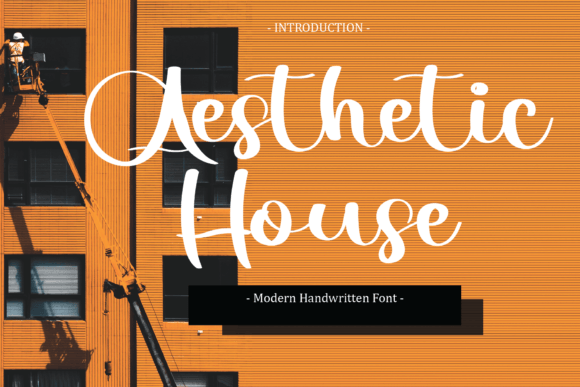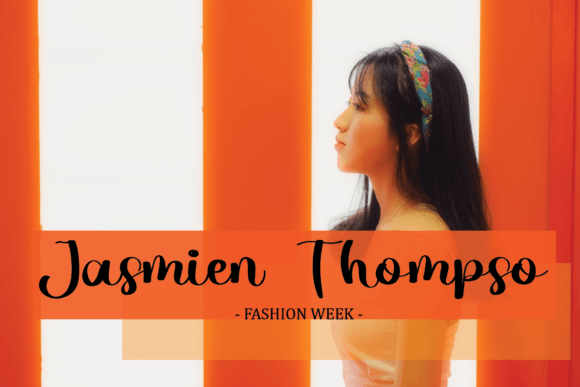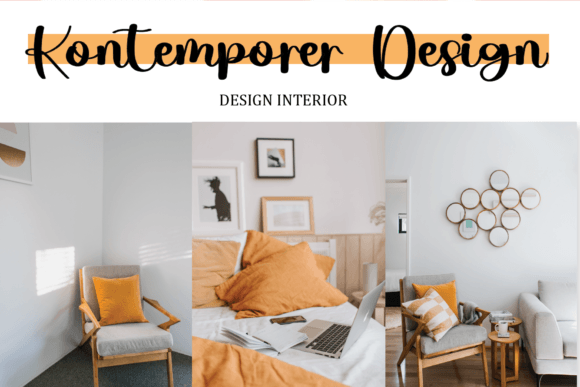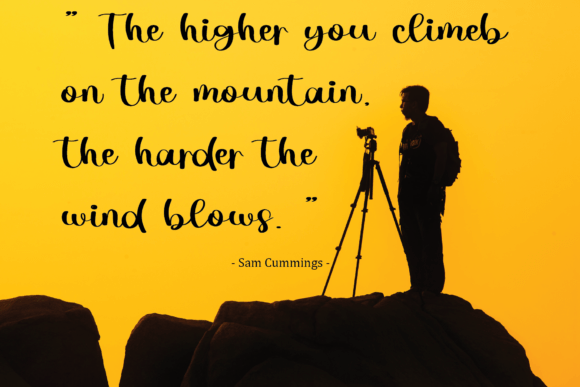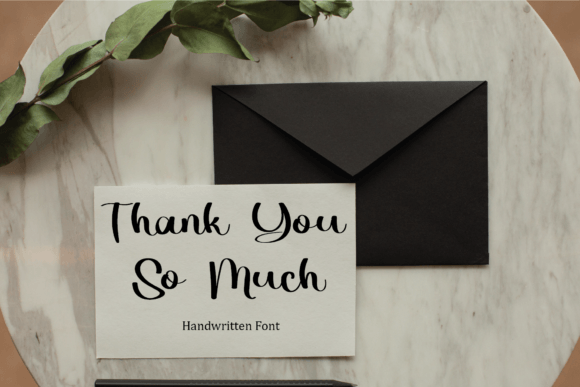
Aesthetic House Font
About Aesthetic House Font
**”Aesthetic House” Handwritten Font: Elegance and Modern Charm**
“Aesthetic House” is an elegant handwritten font that radiates beauty, featuring exquisite characters with a modern impression. This font’s graceful style makes it perfect for a wide range of design applications, adding a touch of sophistication to your projects. Here’s how you can leverage the “Aesthetic House” font to create stunning designs:
1. **Wedding Invitations:** Elevate your wedding invitations with the “Aesthetic House” font. Its elegant and modern characters add a touch of sophistication to the most special day of your life.
2. **Thank You Cards:** Create beautiful thank you cards that convey your gratitude with style. The font’s graceful strokes enhance the message’s elegance.
3. **Greeting Cards:** Design stunning greeting cards for various occasions, from birthdays to holidays. The font adds a personalized and handwritten touch to your sentiments.
4. **Business Cards:** Craft professional and memorable business cards that stand out. The font’s modern charm adds sophistication to your contact information and branding.
5. **Logos:** Incorporate the “Aesthetic House” font into your logo design to create a brand identity that exudes elegance and uniqueness.
6. **Advertisements:** Use the font in advertising campaigns to add a touch of sophistication to your promotional materials. It captures attention and conveys professionalism.
7. **Inspirational Quotes:** Design beautiful quote graphics for social media, posters, or merchandise. The font’s modern and elegant style enhances the visual impact of your messages.
8. **Art Prints:** Create art prints featuring the “Aesthetic House” font to showcase your artwork. Its elegant characters complement various art styles.
9. **Quote Books:** Design quote books or compilations with a refined and modern look. The font adds a contemporary touch to your collection of quotes.
10. **Product Packaging:** Enhance the packaging of your products, such as cosmetics, perfumes, or gourmet foods, with the “Aesthetic House” font for a luxurious feel.
11. **Branding Collateral:** Use the font in branding collateral, including letterheads, envelopes, and digital presentations, to create a cohesive and elegant brand identity.
12. **Fashion Industry:** Apply the font to fashion branding, including clothing labels, hang tags, and promotional materials. Its modern elegance suits fashion brands.
13. **Website Headings:** Incorporate the font in website headings and headers to make a bold and sophisticated statement on your web pages.
14. **Fine Dining Menus:** Design menus for upscale restaurants and fine dining establishments. The font’s elegance complements the refined atmosphere of such venues.
15. **Book Covers:** Create captivating book covers for novels or non-fiction works. The “Aesthetic House” font adds a touch of modernity to your book titles.
16. **Beauty Product Labels:** Apply the font to labels for beauty and skincare products. Its modern impression enhances the overall appeal of the products.
17. **Corporate Presentations:** Use the font in corporate presentations to convey professionalism and sophistication to your audience.
18. **Luxury Branding:** Elevate the branding for luxury items, such as jewelry, watches, or high-end accessories, with the “Aesthetic House” font. It exudes opulence.
19. **Artistic Exhibitions:** Use the font in promotional materials for art exhibitions or creative showcases. Its elegant style complements artistic presentations.
20. **Boutique Hotels:** Incorporate the font into branding materials for boutique hotels or upscale accommodations to create a refined and inviting atmosphere.
The “Aesthetic House” font presents a captivating blend of modernity and elegance, making it a versatile choice for a wide range of design projects. Its varied and interesting hand strokes, along with stunning alternates, add depth and sophistication to your designs. Embrace the beauty of “Aesthetic House” to infuse your projects with elegance and create visually stunning and memorable pieces of art.